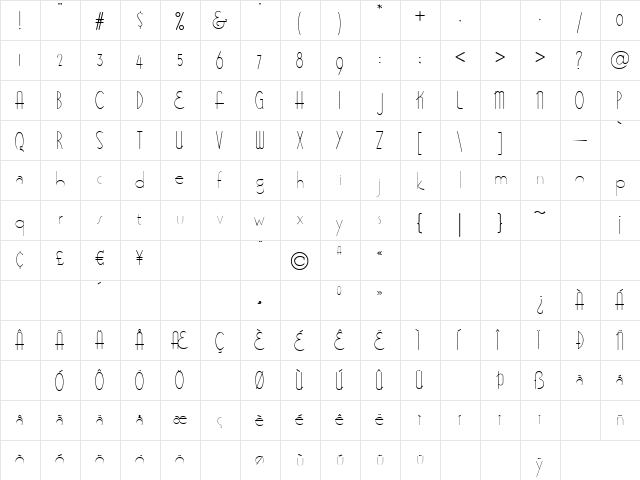
Bittersweet Revised Regular
Design Context for Bittersweet Revised Typeface
Bittersweet Revised is a composed and adaptable typeface that performs quietly and consistently across a wide range of design contexts.